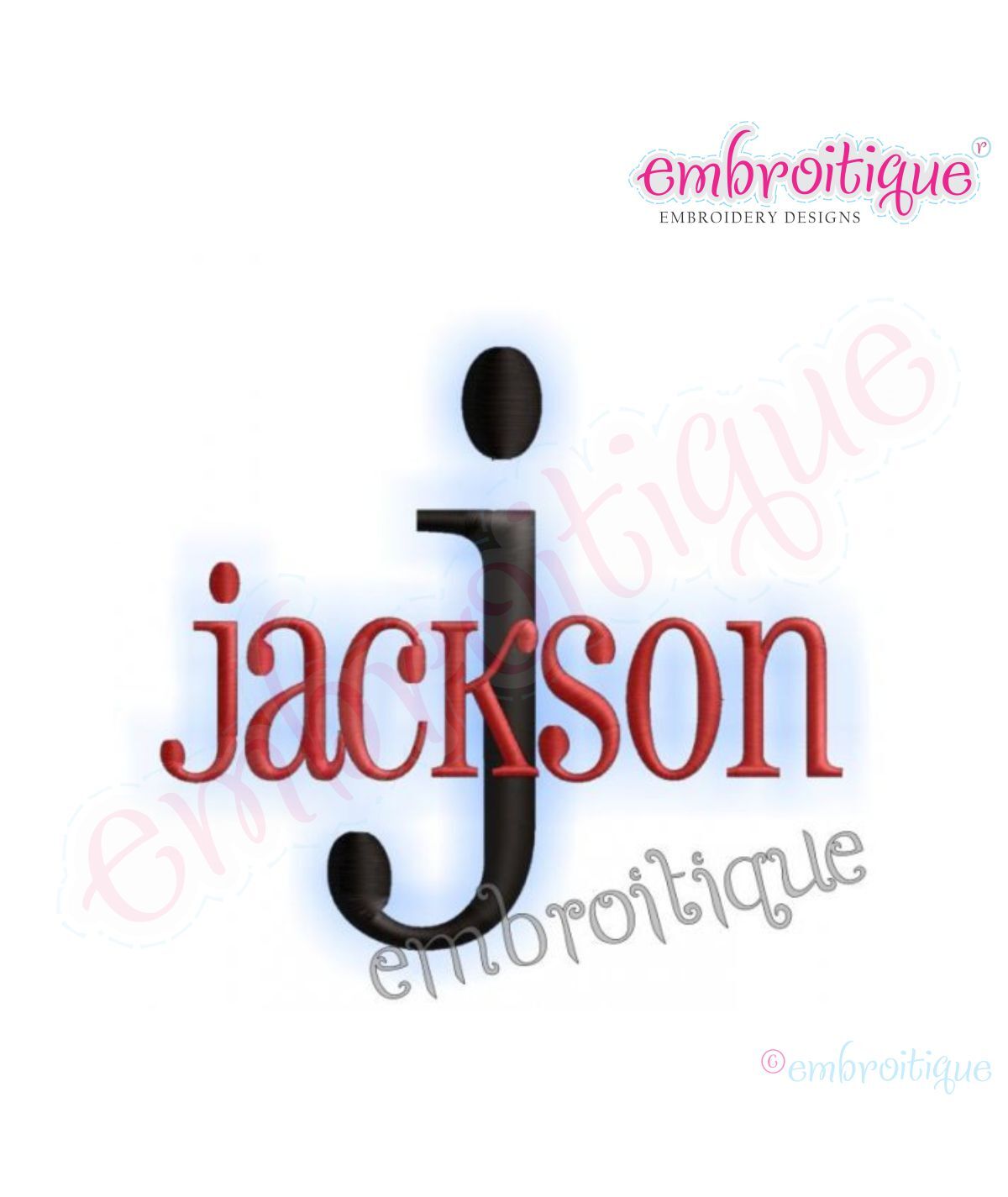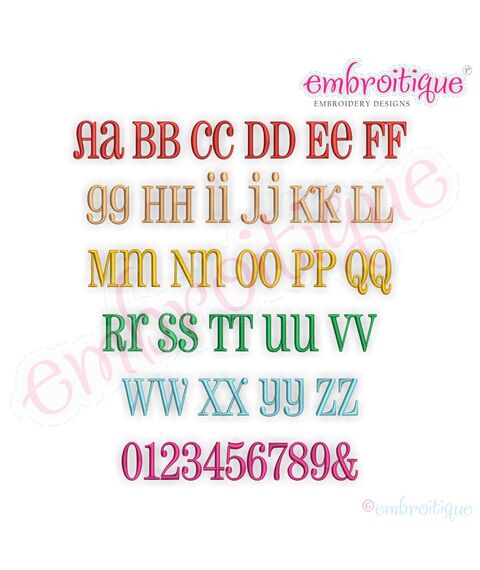
Jackson Monogram Alphabet Font - Great for Boys, and Girls Too
One of our most popular sets!  Of course it is great to use for girls - but we just LOVE this one for boys - and you will too!
0.5" - 2" satin stitch
3"-6" patterned fill (step) stitch
One of our most popular sets!
Of course it is great to use for girls - but we just LOVE this one for boys - and you will too!